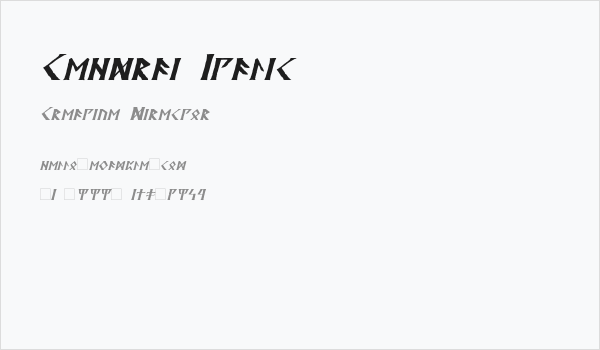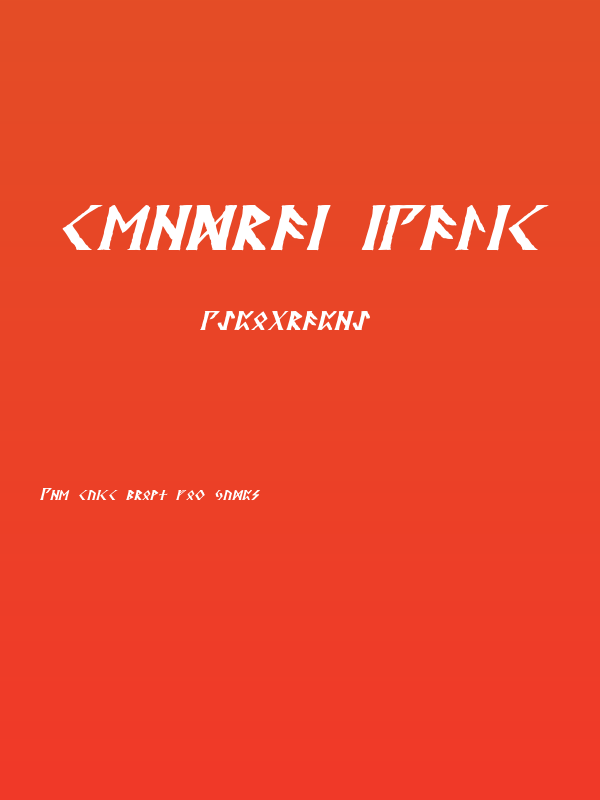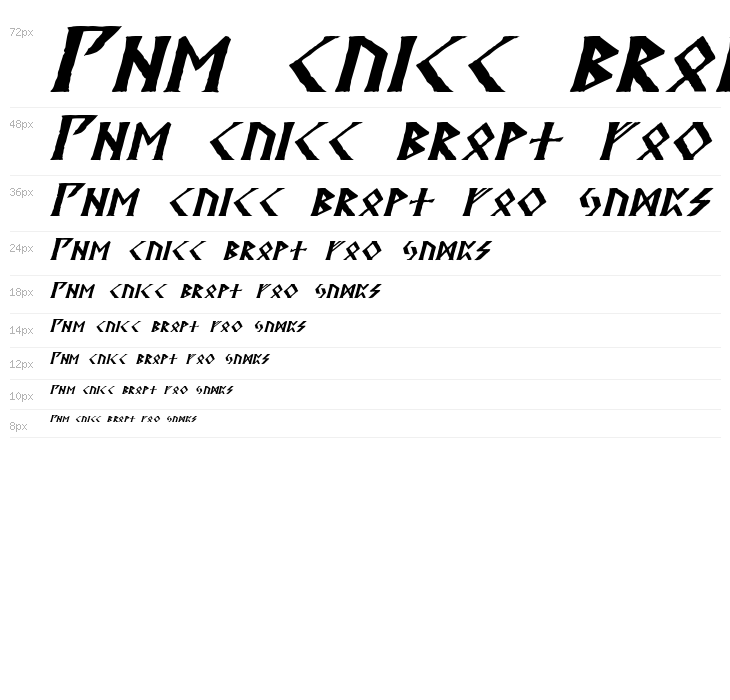
Kehdrai Italic Font
Kehdrai Italic Description
This font features a bold and angular design, reminiscent of ancient runic scripts. Its sharp edges and geometric shapes give it a distinct, edgy appearance. The characters are slightly slanted, adding a dynamic and italicized feel. The uppercase and lowercase letters maintain a consistent style, with a strong emphasis on diagonal lines and sharp corners. The numerals and special characters follow the same design principles, ensuring uniformity across the font. This font is ideal for projects that require a bold and striking visual impact.
| Proposed Projects | Perfect for fantasy-themed designs, video game titles, movie posters, and branding that requires a strong, unique presence. |